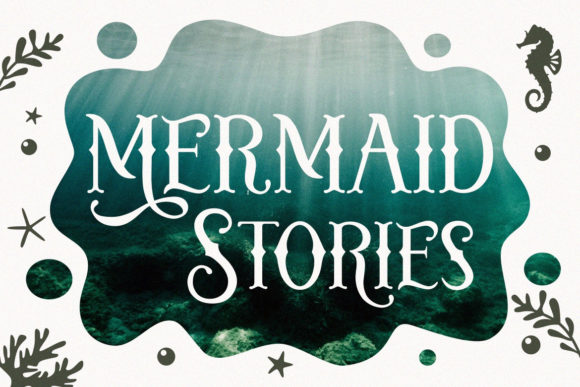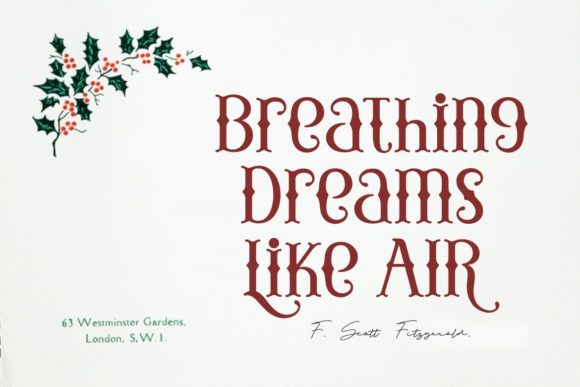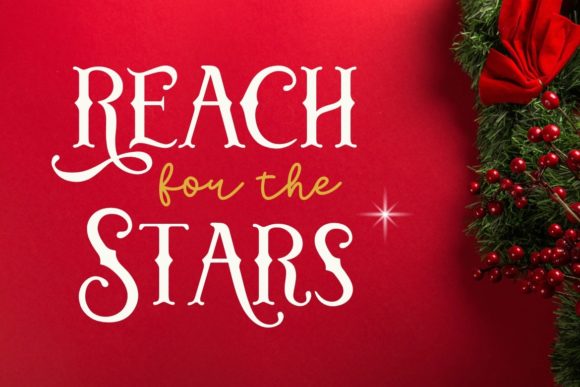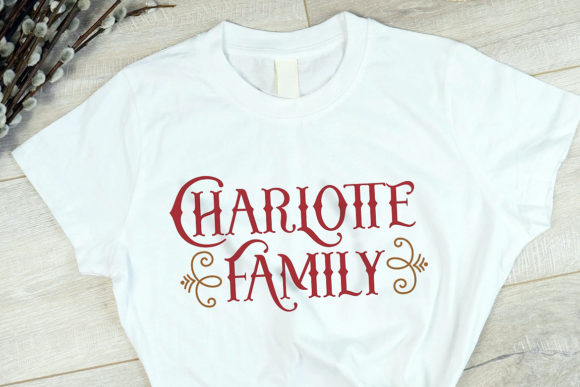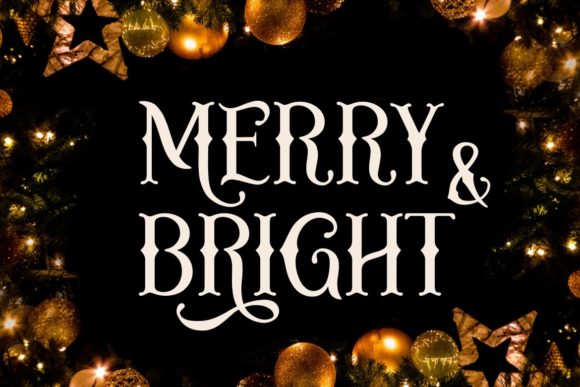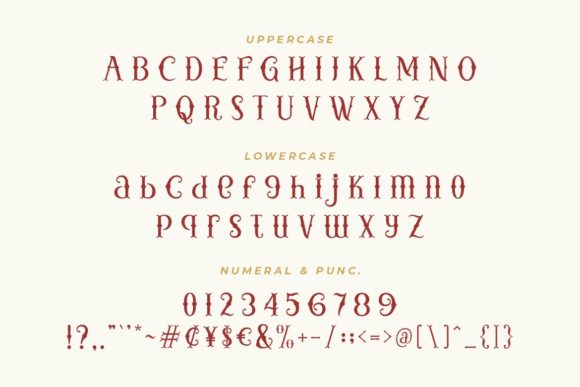
Introduction to Little Witches Font
Have you ever been working on a creative project, pouring over design elements, and then – suddenly – the perfect font pops into your mind? That’s exactly what happened to me when I discovered the enchanting Little Witches Font. Its bold, whimsical style is the perfect addition to any crafty idea, from letterheads and titles to stationery.
As a designer, I can attest to the value of having high-quality design resources like the Little Witches Font at our fingertips. With a transparent background and crisp, clear lines, this font is a dream to work with. And the best part? It’s available for free download, making it an invaluable asset for any creative project.
Whether you’re a seasoned pro or just starting out, the Little Witches Font is sure to add a touch of magic to your designs. So why settle for a bland, generic font when you can cast a spell with this charming display font?
Key Features of Little Witches Font
- Unique, whimsical design perfect for creative projects and spellbinding themes.
- High-quality font with a transparent background, ideal for use on dark or textured backgrounds.
- Perfect for designers, artists, and writers seeking a magical and enchanting font for their next creative project.
Honest Review: Little Witches Font
As a designer, I’ve had my fair share of using various fonts for creative projects, and I recently stumbled upon the Little Witches Font. I was excited to dive in and see what it had to offer.
- ✨ Unique and whimsical design that’s perfect for adding a touch of magic to your project.
- ✨ High quality and clear, making it easy to read and use in various contexts.
- ✨ A transparent background, which gives you the flexibility to use it with any color scheme or design element.
- ⚠️ The font might not be suitable for formal or professional projects, as it has a more playful and whimsical tone.
- ⚠️ Some users might find the font a bit too ornate or distracting, depending on the design context.
Overall, I think the Little Witches Font is a great addition to any designer’s toolkit. While it may have some limitations, its unique design and high quality make it an excellent choice for creative projects where you want to add a touch of magic and whimsy.
To get the most out of the Little Witches Font, use it in conjunction with other design elements to create a cohesive look. Experiment with different font sizes, colors, and styles to add depth and interest to your design. The Little Witches Font is perfect for adding a touch of whimsy to your creative project.
The Little Witches Font is perfect for a variety of creative projects, including spellbook designs, magical invitations, and whimsical logos. It’s also great for adding a touch of magic to your social media graphics, blog posts, and marketing materials.